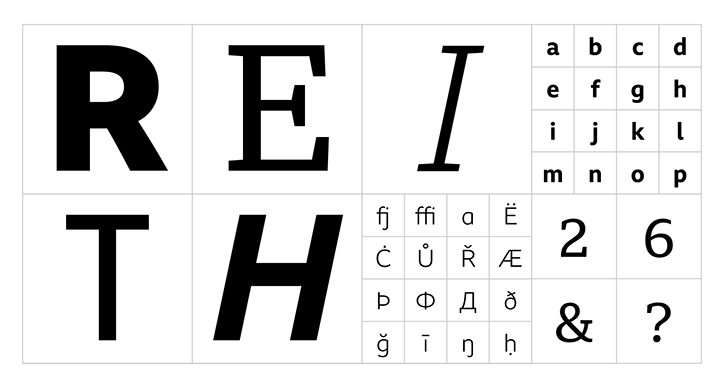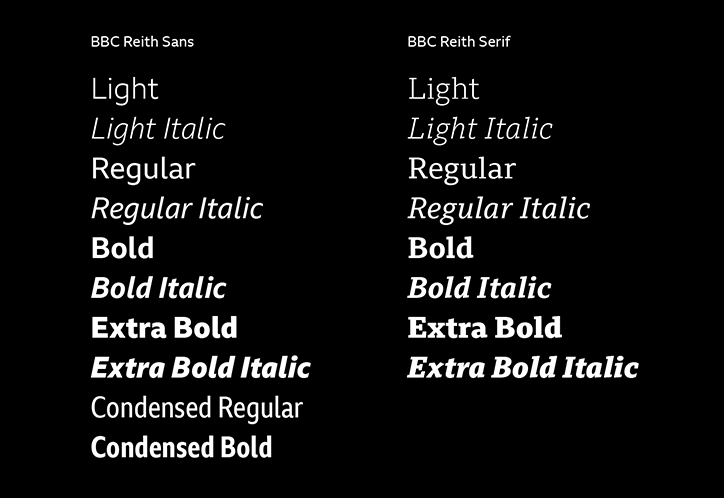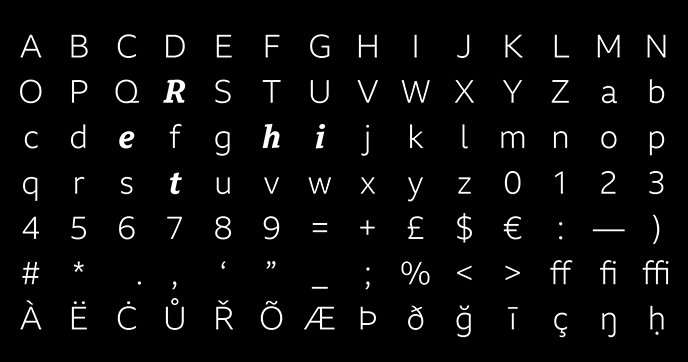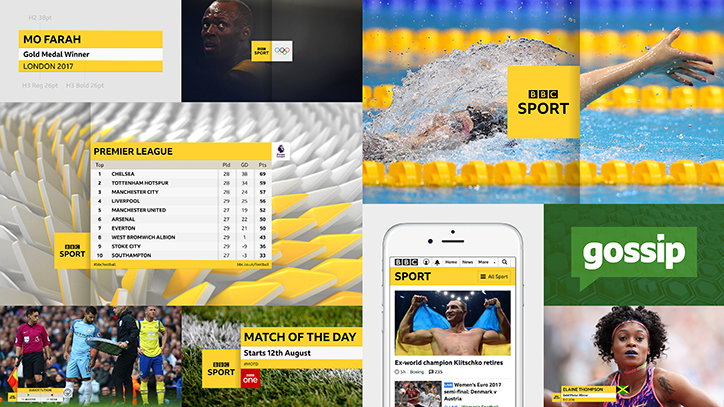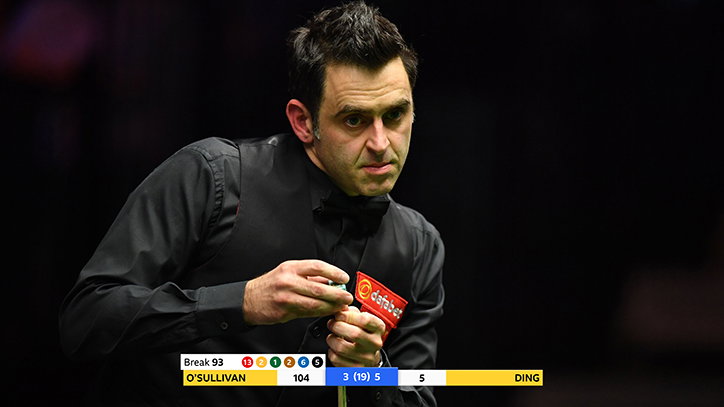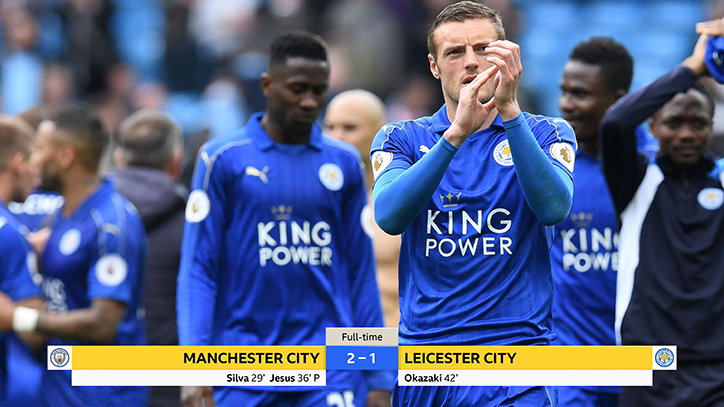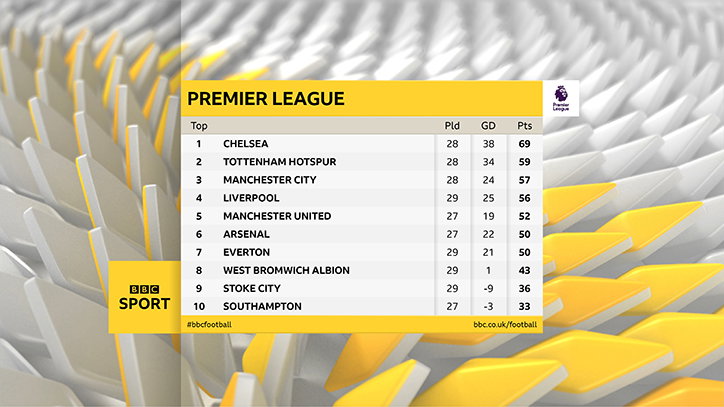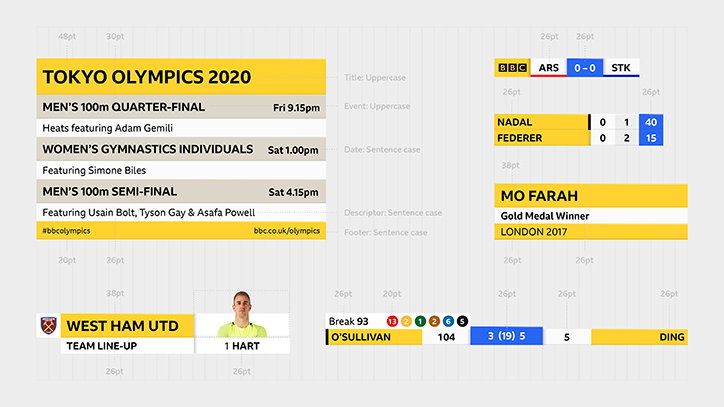
BBC’s new typeface BBC Reith is designed to improve legibility on screen
The BBC has commissioned a new typeface, BBC Reith which will make text easier to read on screen and “will also save the BBC money”. The “master-brand” typeface is named after the organisation’s founder Lord John Reith, and has started to be rolled out gradually starting on BBC Sport.
To design the typeface the BBC worked with type foundry Dalton Maag. David Bailey, BBC’s creative director of GEL and UX&D says: “Working on the font has been a fantastic collaborative effort by stakeholders from right across the organisation. Up to now we’ve used Helvetica (or Arial if you’re on a PC) for our digital reading experience, and Gill Sans for our master branded services (e.g. News, Sport, Weather etc). These fonts were designed 100 years ago for the printed page so therefore, legibility-wise, they don’t perform well on today’s digital screens.”
On the typeface itself David says: “Reith is a contemporary Humanist typeface. Humanist typefaces are named as such due to each character’s fluctuating stroke width which suggests a calligraphic human touch.  Reith has contemporary proportions, consistent vertical cut terminals with sharp connections of curved strokes to straight. The open counters and apertures of each character affords more breathing space, aiding legibility. The face has a spartan elegance, (e.g. the single storey lowercase g) and its distinctive ascenders and open narrow characters ease recognition. It’s a beautiful typeface which is more versatile and works alongside our pan-BBC design framework.”
Bruno Maag, the founder and chairman of Dalton Maag, explains how the type foundry “worked closely with stakeholders from right across the BBC and gained a solid understanding of the needs and values of the organisation, and presented numerous options”. The result, “reflects the BBC’s typographic legacy and heralds a contemporary British design aesthetic”.
To coincide with the new typeface, the BBC have also redesigned BBC Sport in a “joint commission from BBC marketing, UX and TV Graphics teams, the project involved BBC Creative — the BBC’s in-house agency — and design agency Studio Output,” the BBC explains. “It includes a brand new logo, font, colour palette and a modular system which enables us to deliver text in a more consistent and elegant way across all platforms. The new logo animation with its shadow line device underpins the whole brand, acting as a catalyst for the delivery data and information. BBC Creative has also delivered a suite of 3D motion backgrounds, which will be a key feature of the new identity.”
BBC Reith